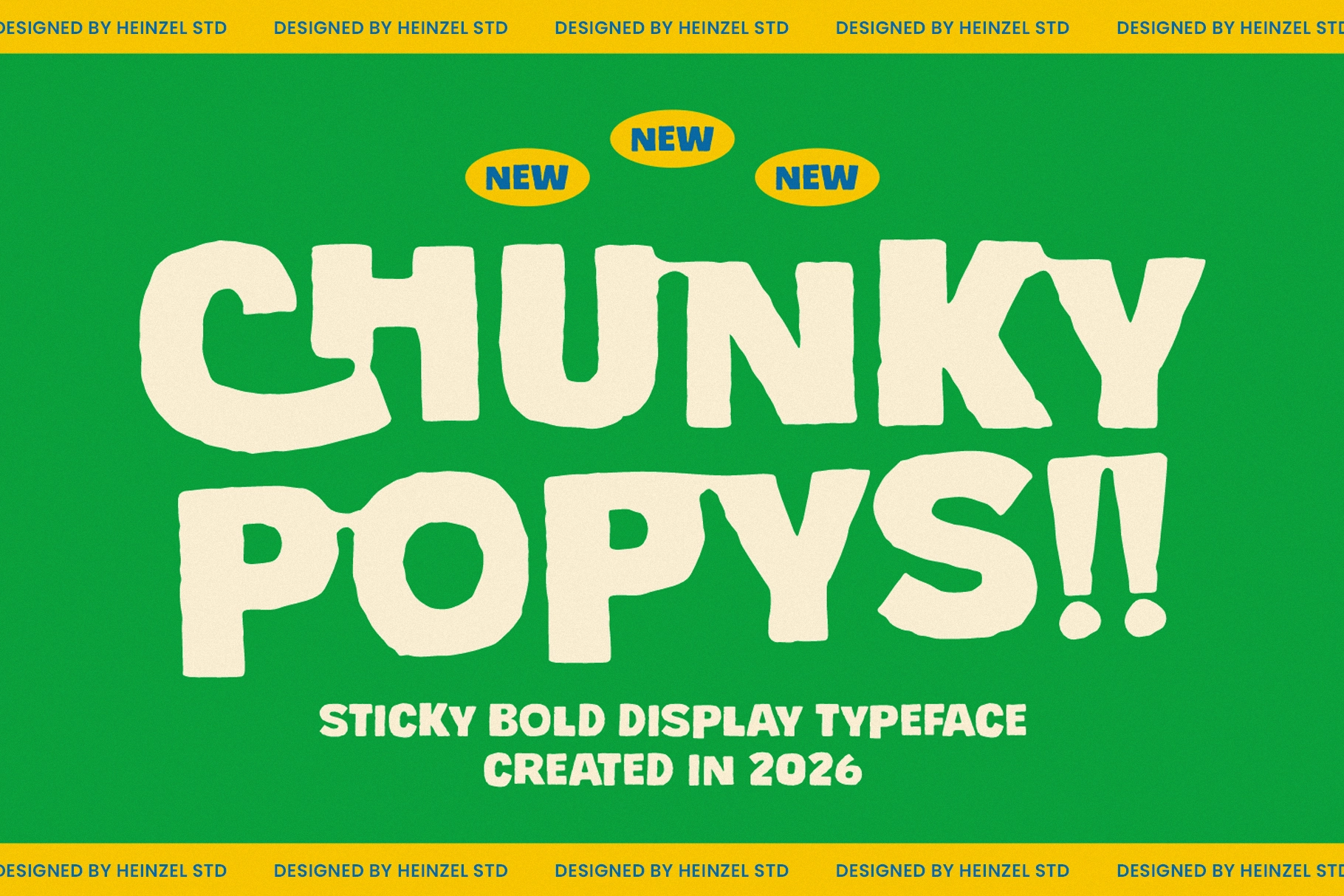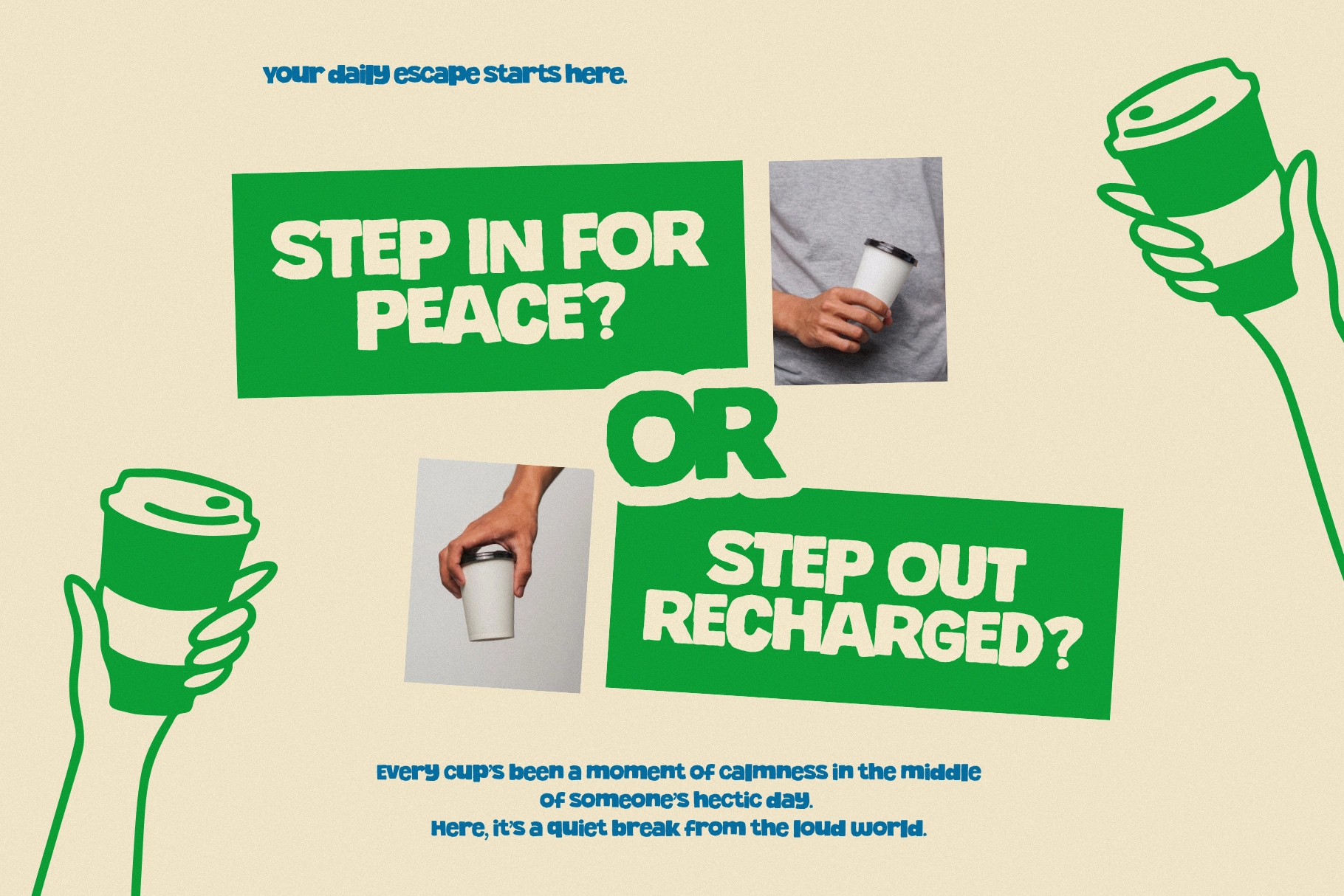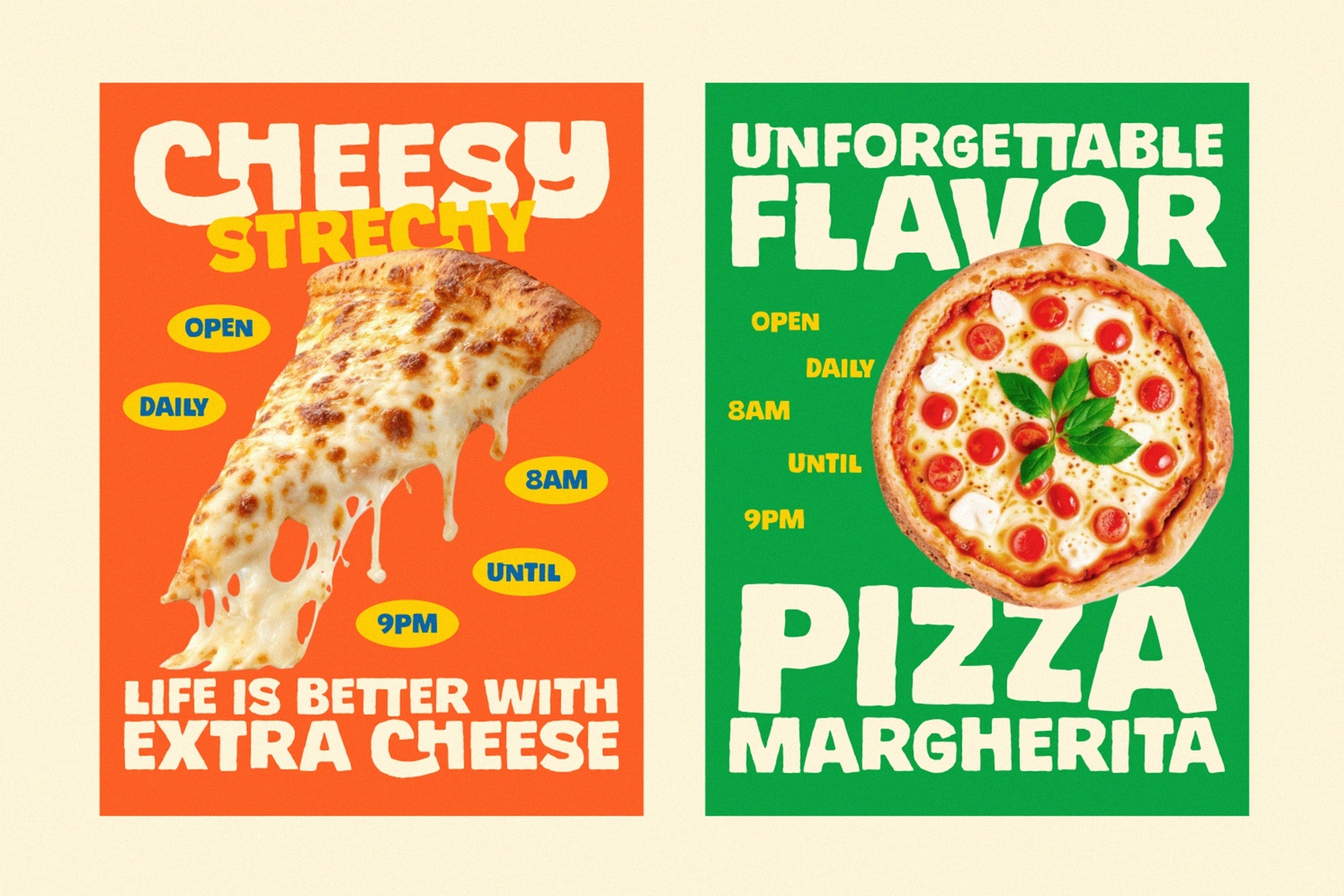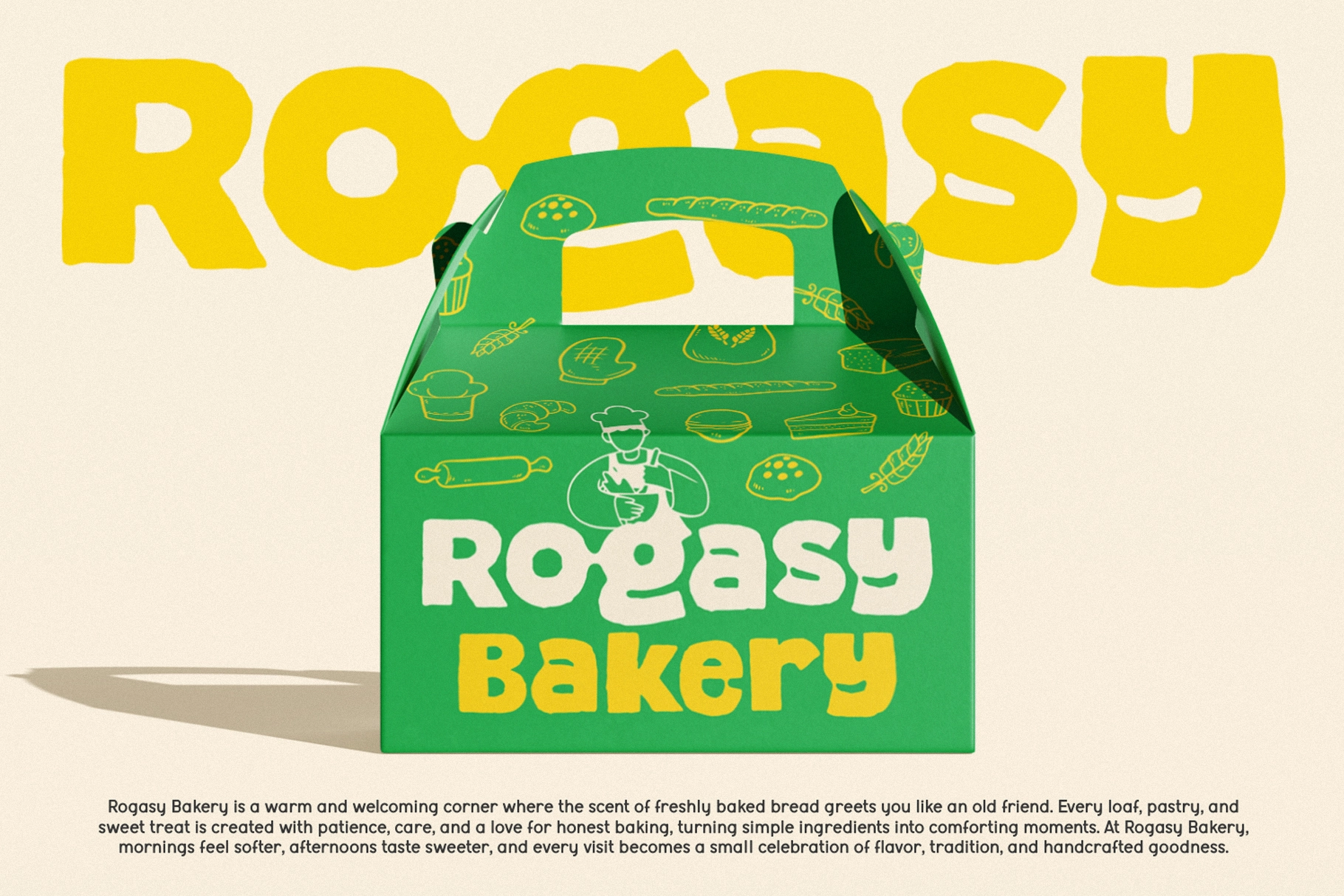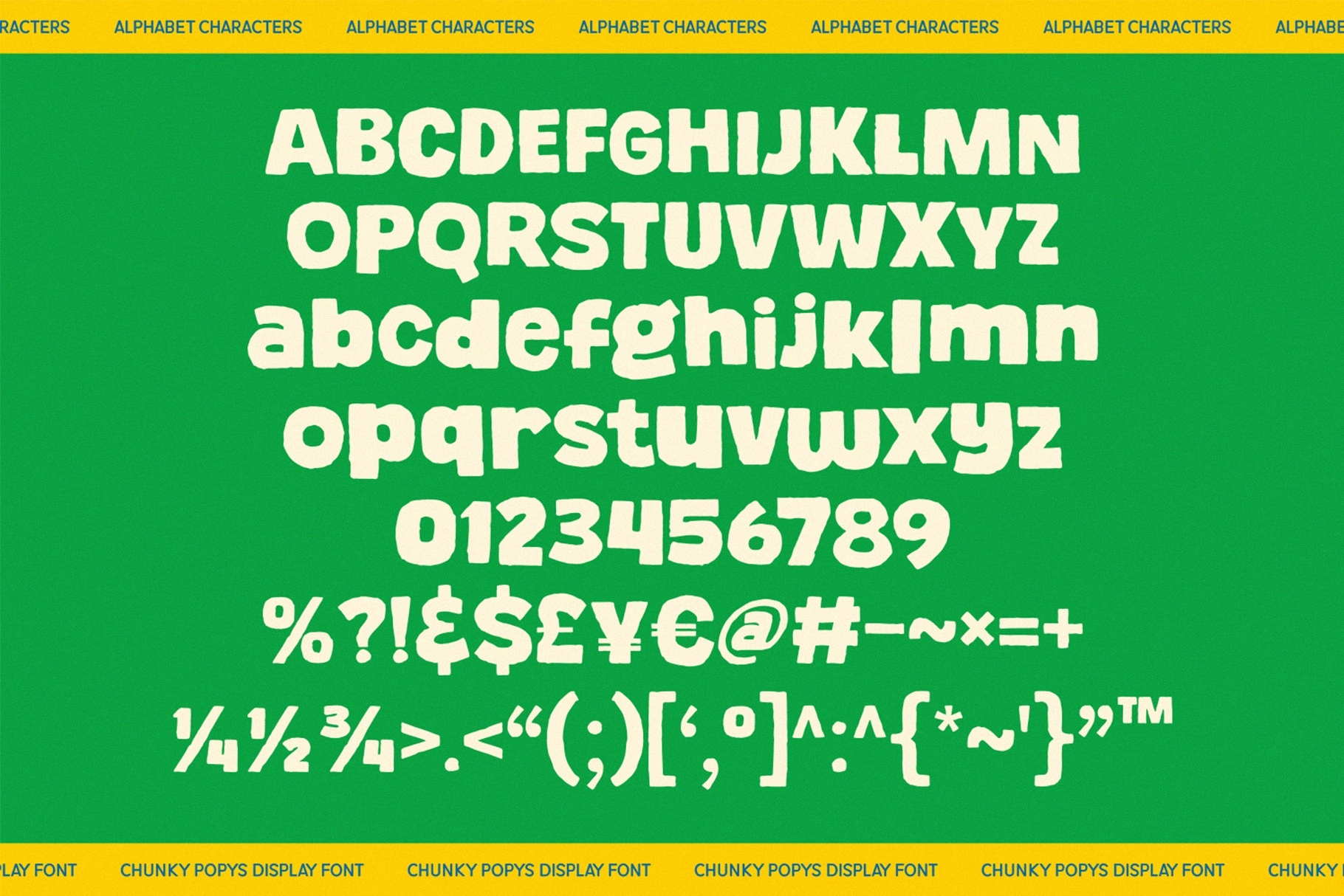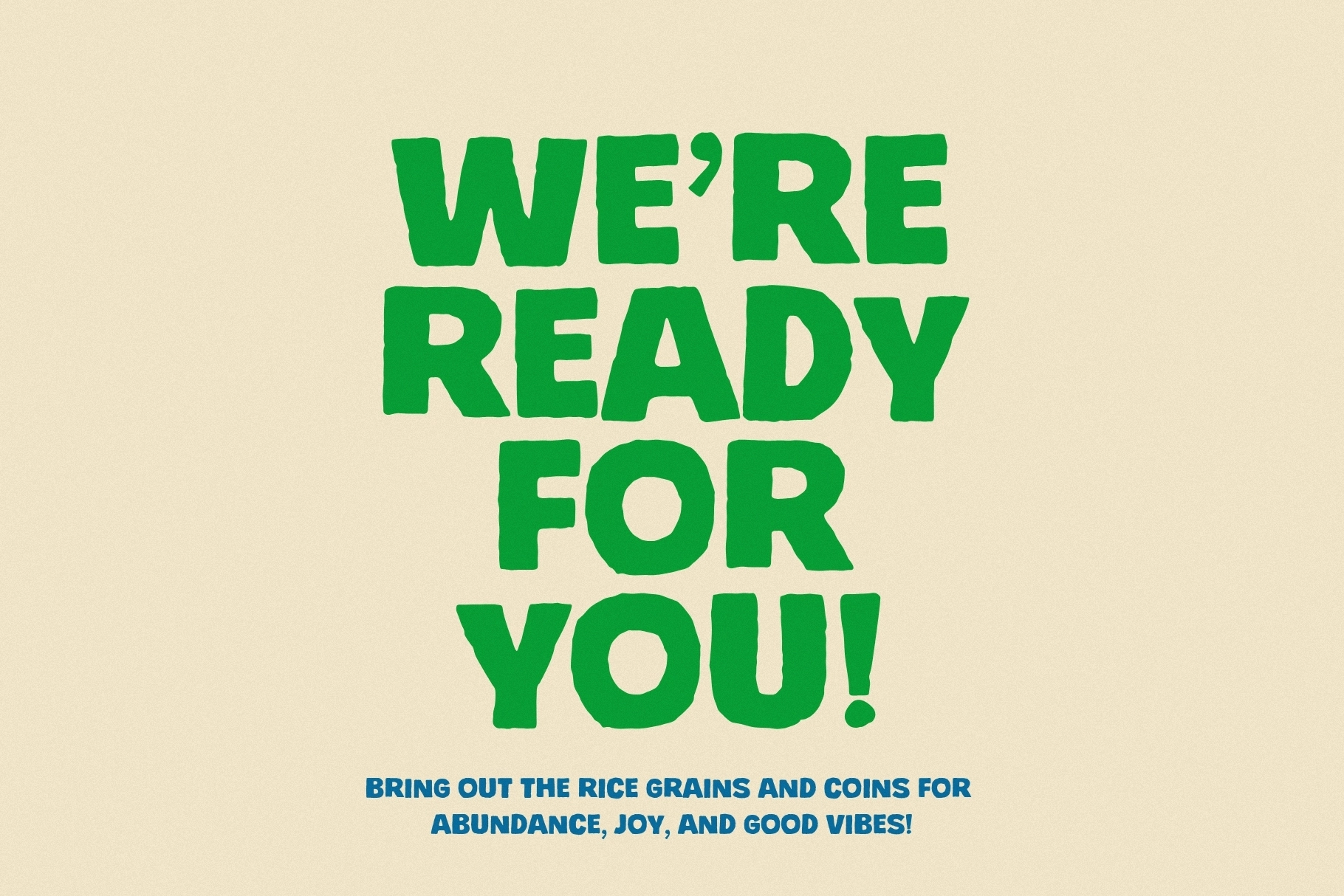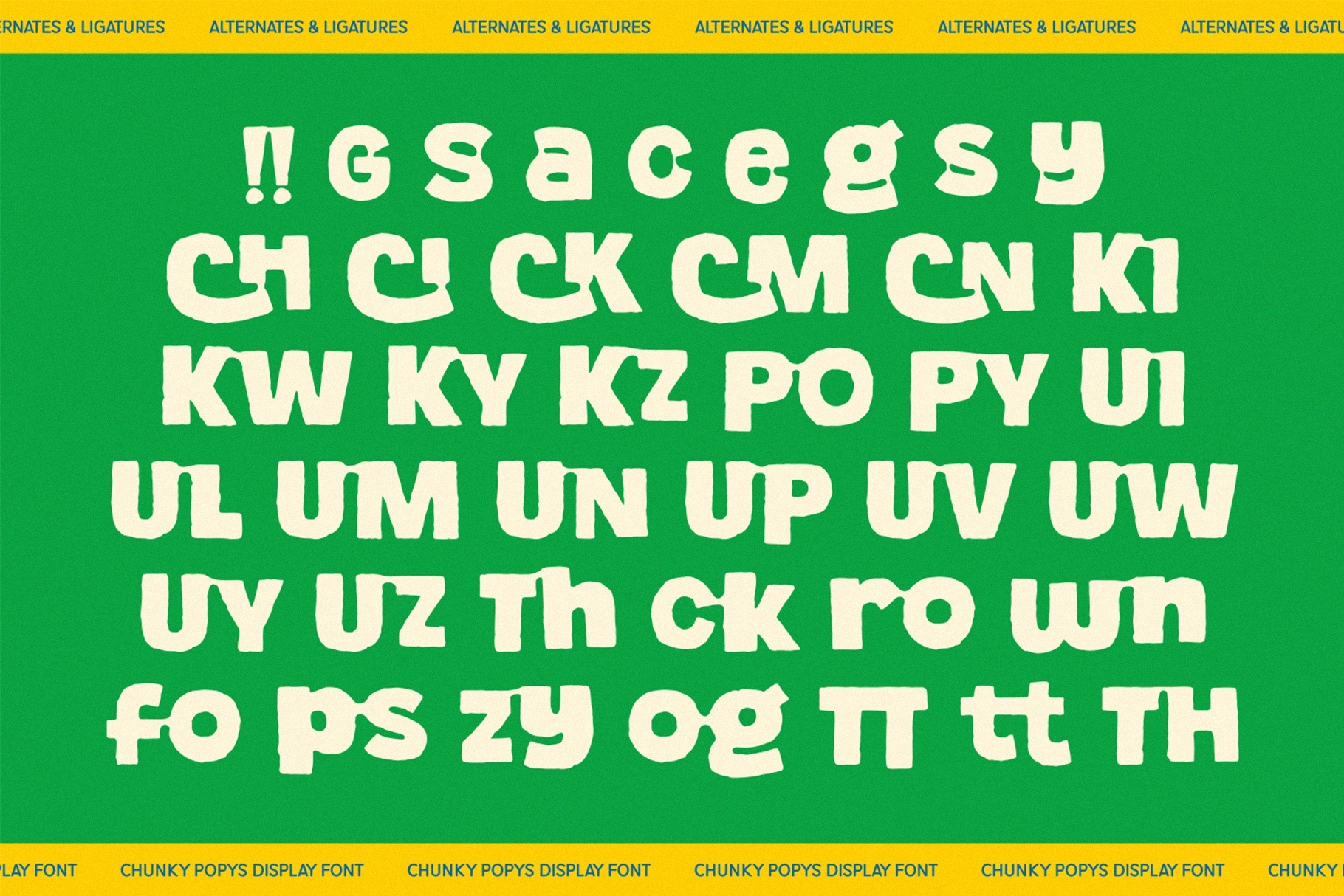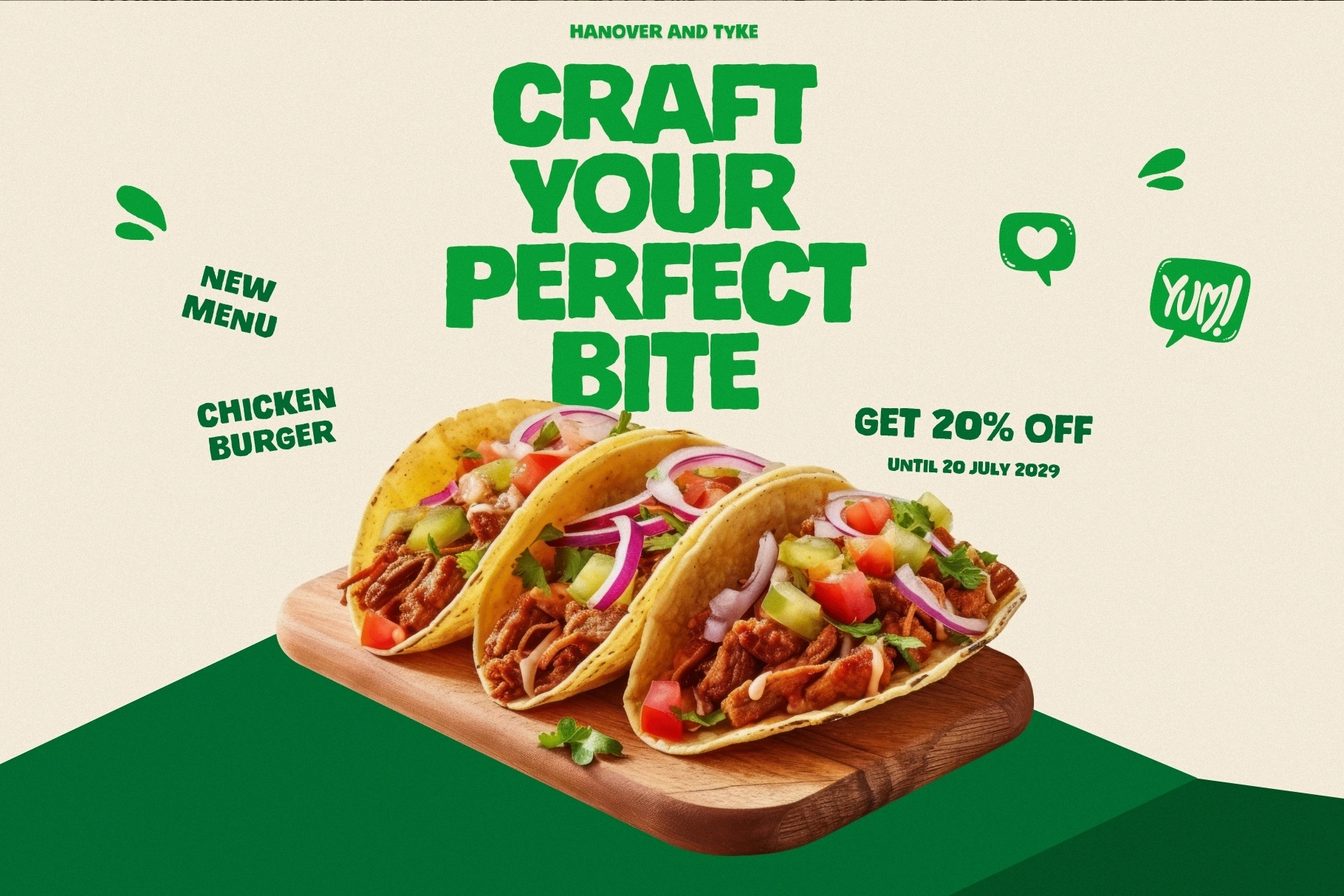
Chunky Popys - Bubble Display Font
Chunky Popys is a bubble display font built from thick, uneven-cut letterforms that look torn out of construction paper rather than drawn with a pen — every stroke runs a slightly different width, closer to hand-cut packaging type than a clean vector alphabet. The forms lean round and sticky, with a melty edge that keeps every word looking a little different from the last one. A set of contextual alternates and ligatures adds to that variation, so repeated letters don't sit identical side by side.
Chunky Popys works loudest at poster and packaging scale. Use it for pizza box branding, snack packaging, retro poster headlines, sticker sheets, and social media graphics that need a shout instead of a whisper.
- Uppercase & lowercase;
- Numerals, punctuation & symbols;
- Contextual alternates and ligatures